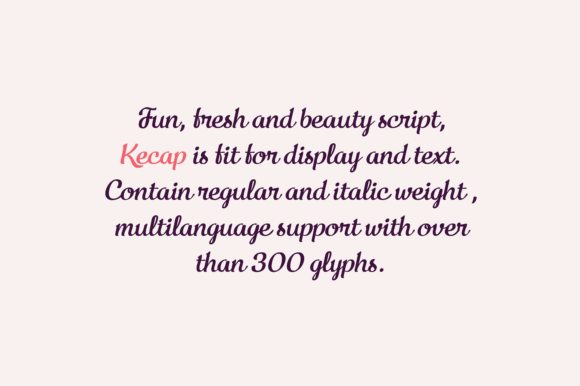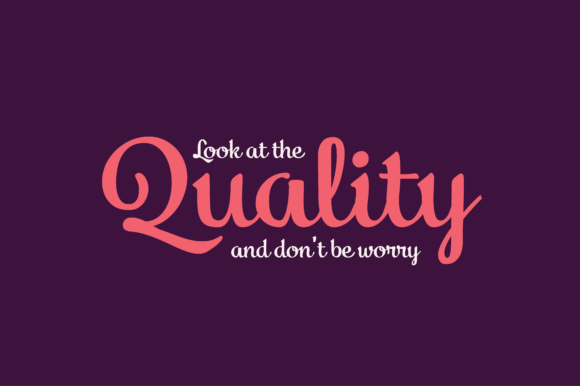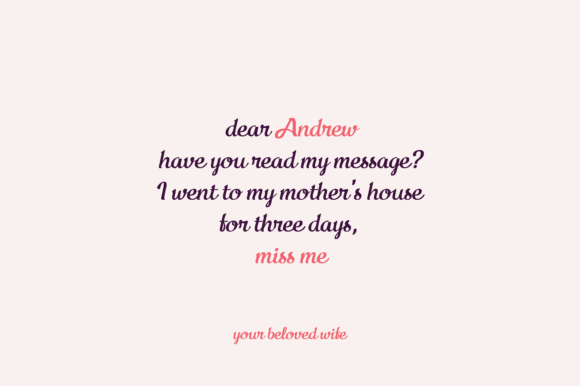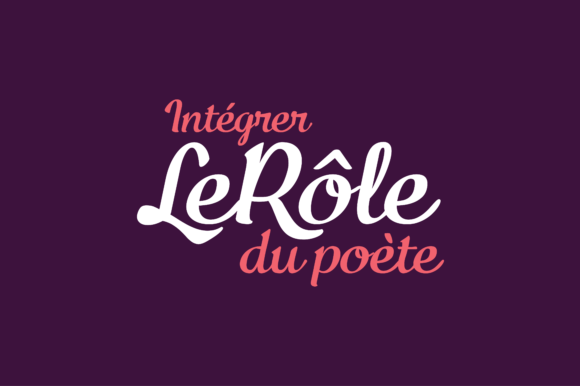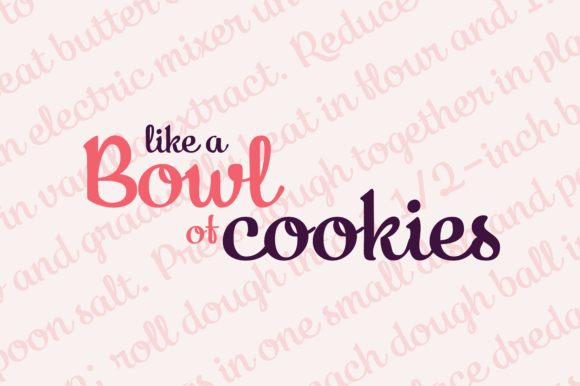
Kecap Script Font
About Kecap Script Font
The Kecap is a fun connected script font. It has a fresh and beautiful look and is perfect for logos, branding, product cards, labels, and much more!